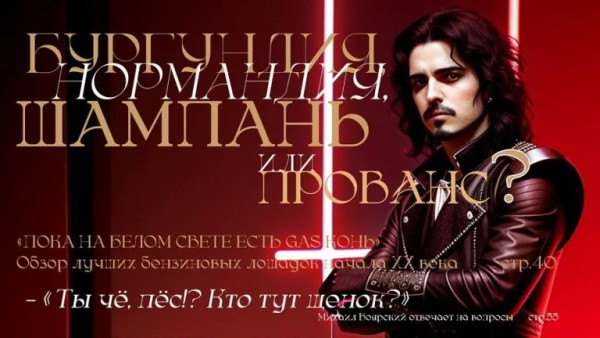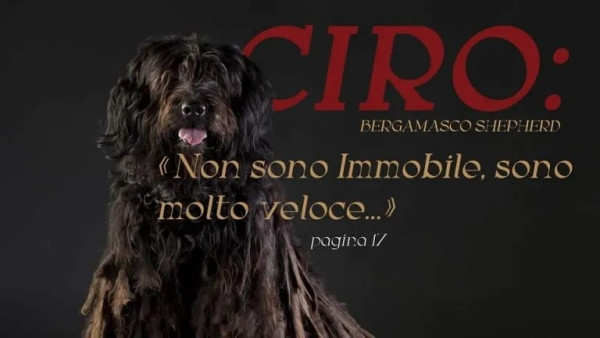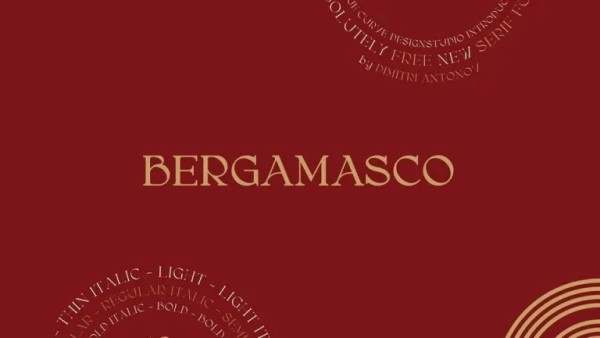
Bergamasco Font
Bergamasco Font is a free vintage serif font created by Dimitri Antonov. Suitable if you need if you want to add a bit of luxury or even quirks to your projects. It’s soft curves mixed with high contrast glyphs, give it a feminine and masculine quality. Perfect for branding projects, logos, magazine imagery, wedding invitations, posters, clothing, packaging, website headers, or simply as a stylish text overlays to any background image.